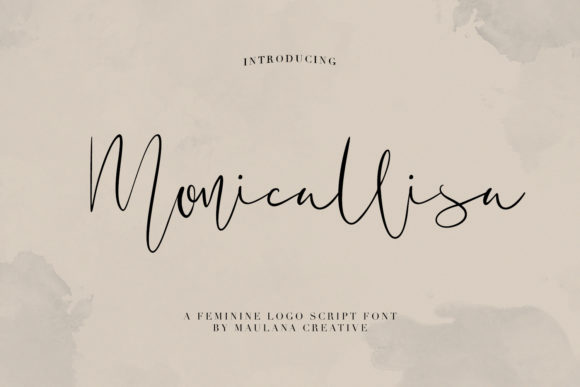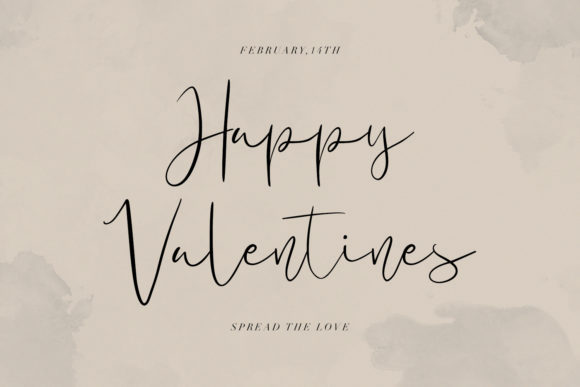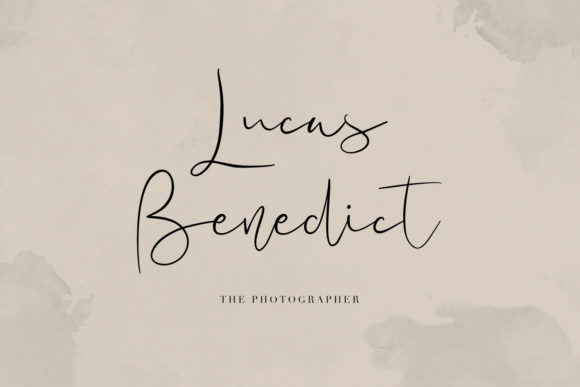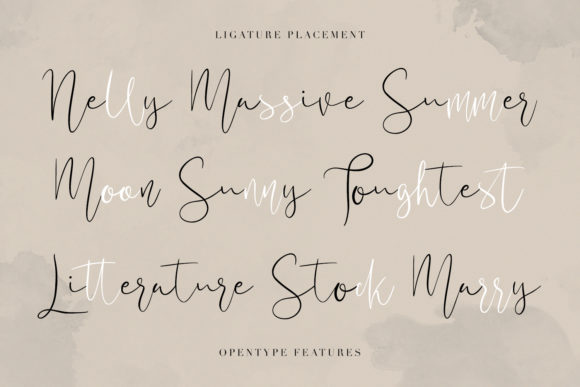
About Monicallisa Font
Monicallisa is handwritten stylish font that combines classic with modern, with a elegant baseline. Can be used for various purposes, such as headings, signature, logos, wedding invitation, t-shirt, letterhead, signage, label, news, posters, badges etc.